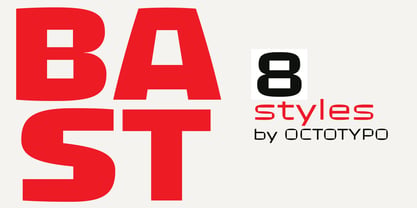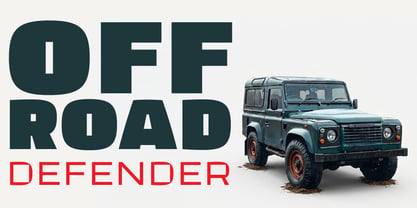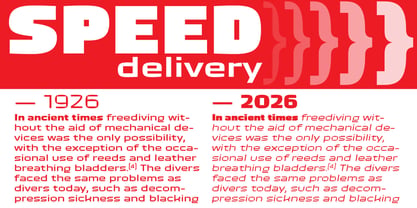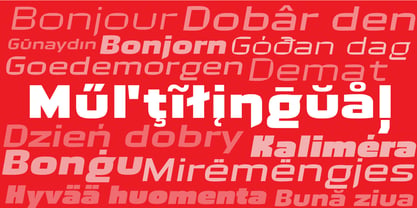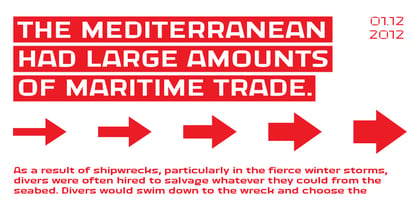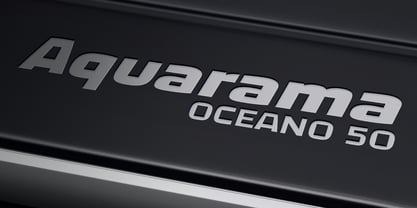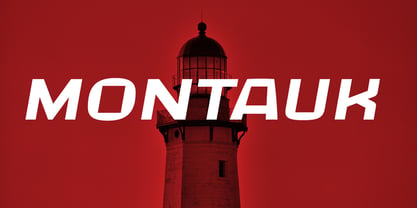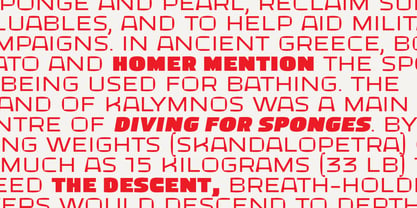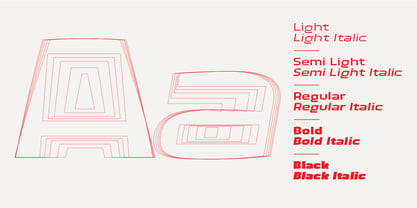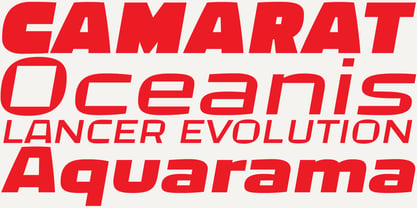
Bast
by Octotypo
The Bast Font Family was designed by Julien Janiszewski and published by Octotypo. Bast contains 10 styles and family package options. More about this family
Bast was born from a single obsession: pushing a sans serif to its structural limits. No unnecessary curves — just flat terminals, clipped angles, and counters that become almost geometric voids. Something closer to metal than to ink.
But rigid systems always crack a little, and that’s where the interesting part lives. The tapered A, the squared bowls of B and R, the slightly awkward S — small decisions that keep Bast from feeling like a grid exercise and give it a personality of its own. Geometric, angular, and deliberately engineered, Bast brings a bold industrial edge to branding, logotypes, automotive graphics, and high-impact visual identities.
The italics lean forward with intent. They are not simply slanted romans: they push, creating a more dynamic voice for posters, editorial design, and expressive display typography.
Five weights, from Light to Black. Built for headlines, logotypes, and any situation where the type has to carry the room.